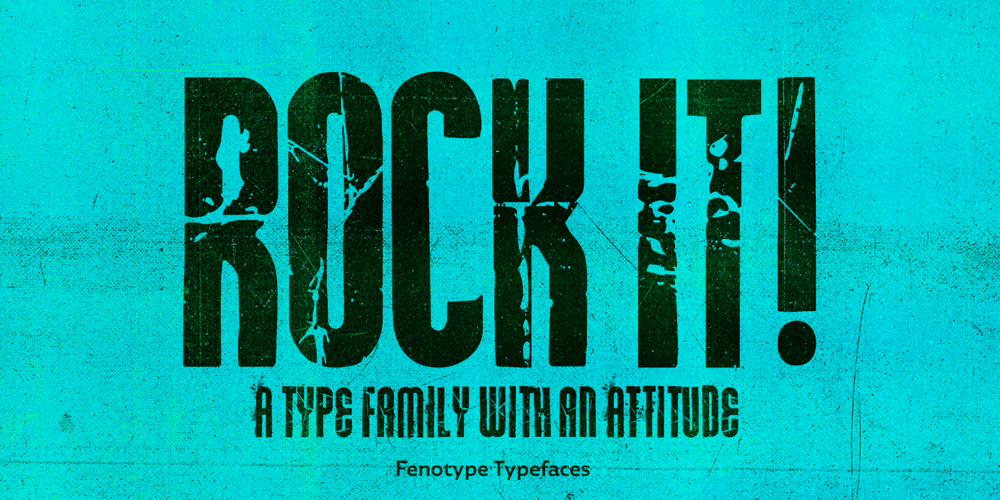
Rock It Font Family was designed by Emil Karl Bertell and published by Fenotype. Rock It contains 3 styles and family package options. Rock it! is a type family that let’s you create instant graphic design for any ROCK, PUNK, HARDCORE, HORROR and so on -gig, poster, logo, and whatever you need. Just type your texts and combine all the tree versions for authentic look! Rock It! includes three ultra condensed sans fonts with different eroded textures and partially different letter shapes. Different versions of Rock It! are set as “Light,” “Regular,” and “Bold”, where Light and Regular have eroded holes in them whereas Bold has “dirty print stains” all over the characters.